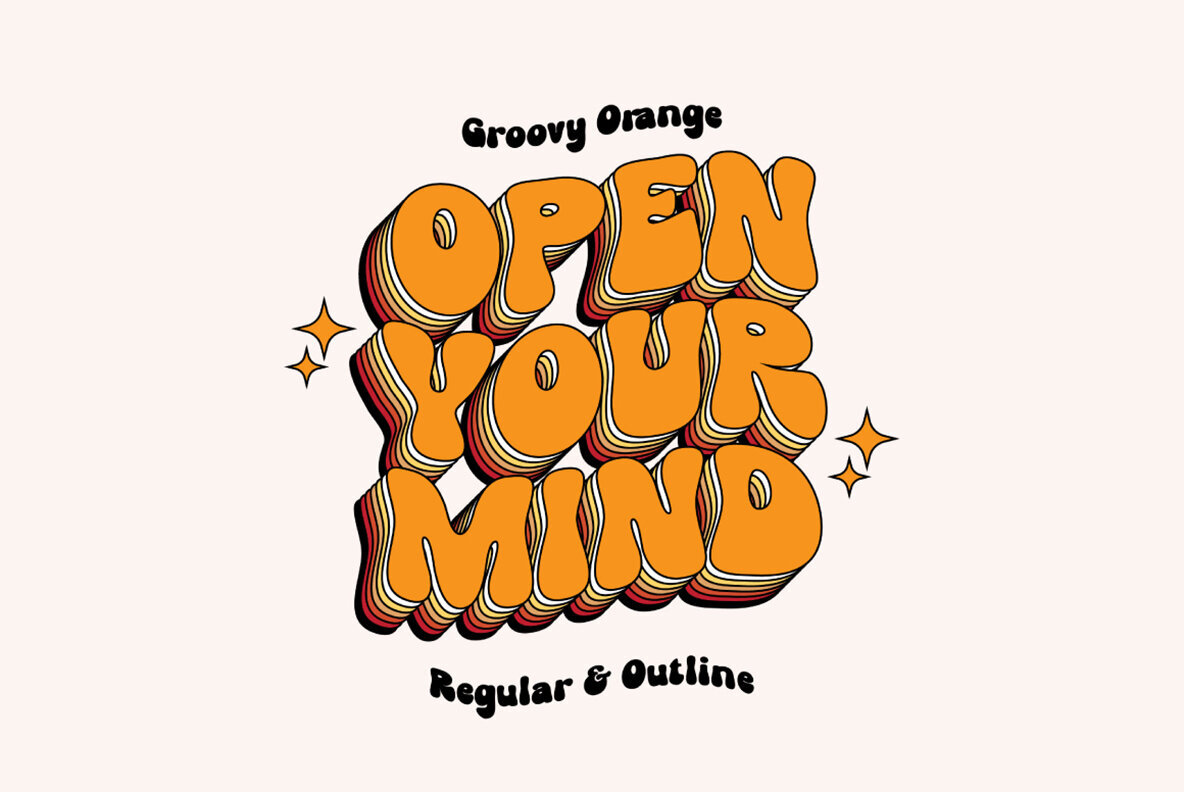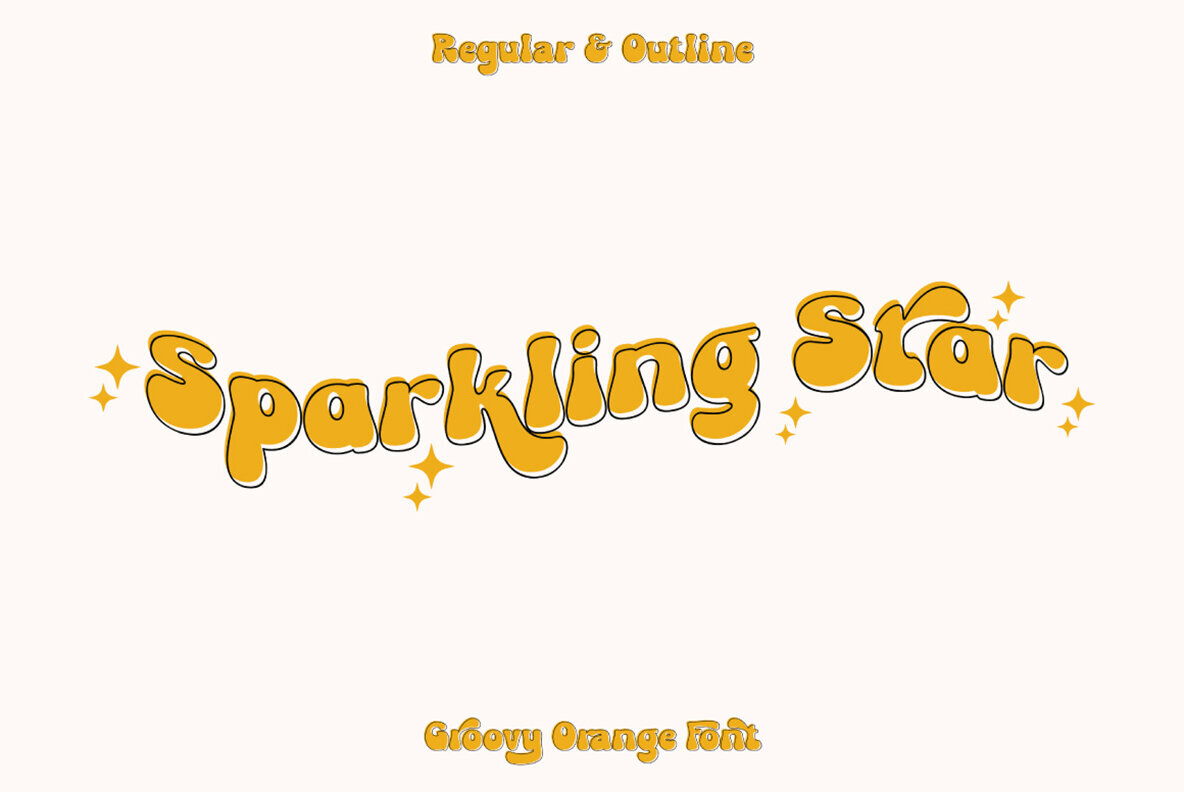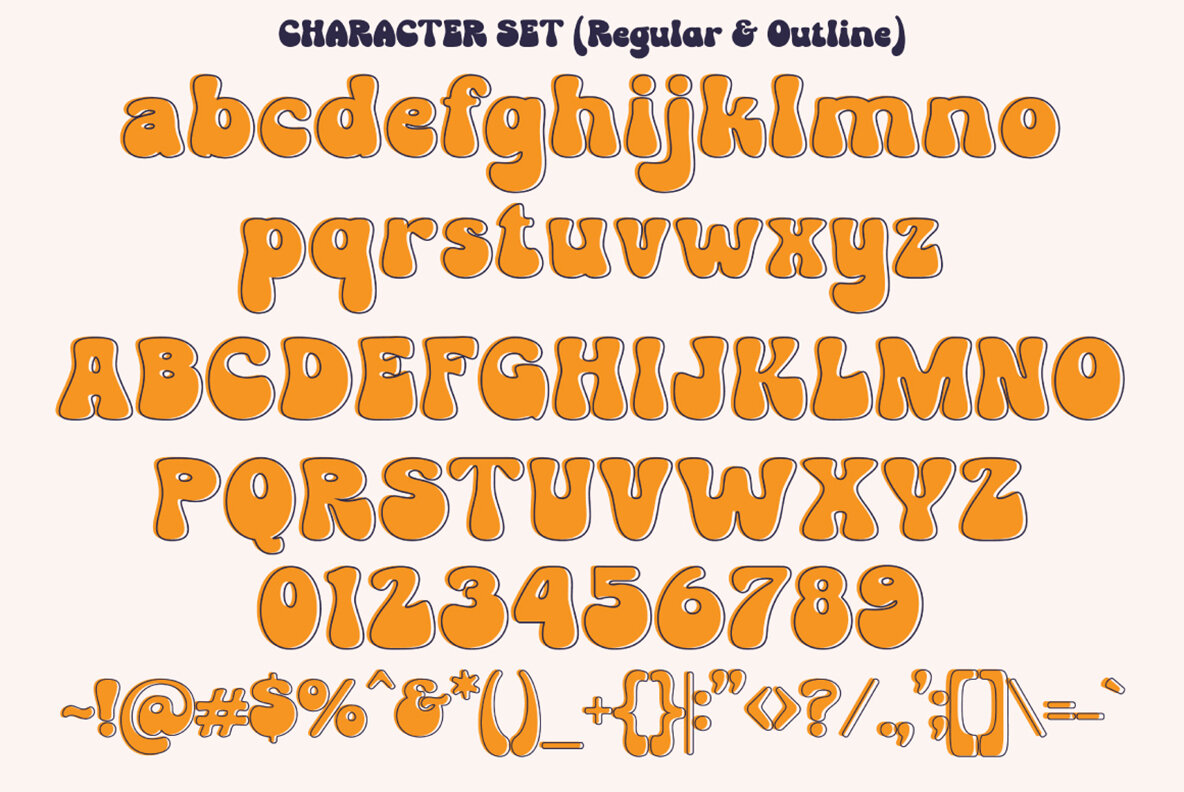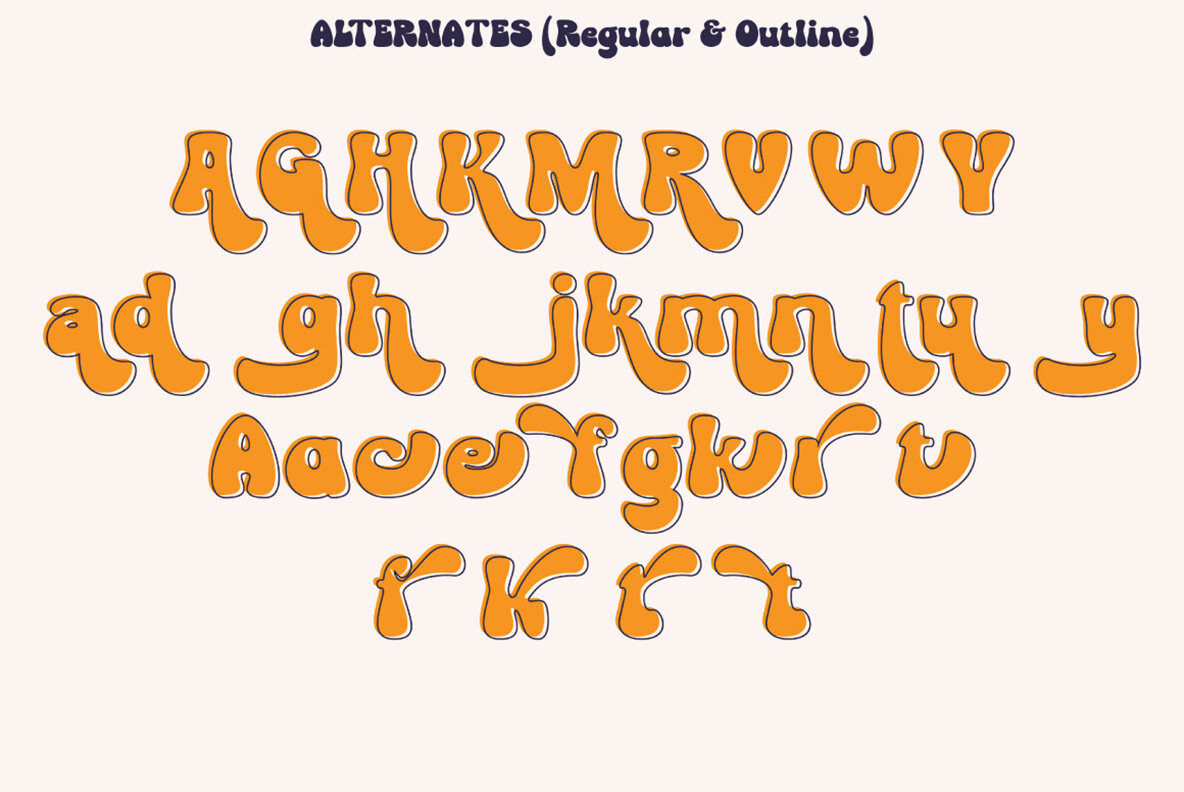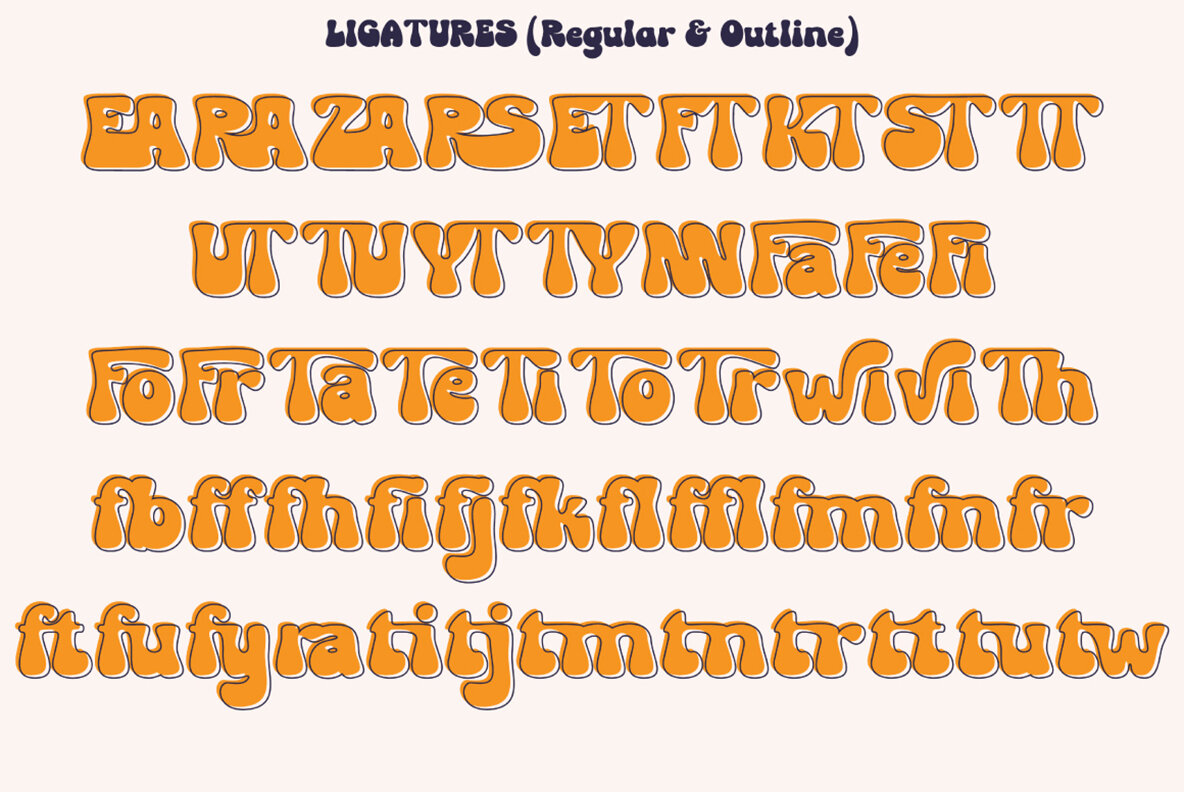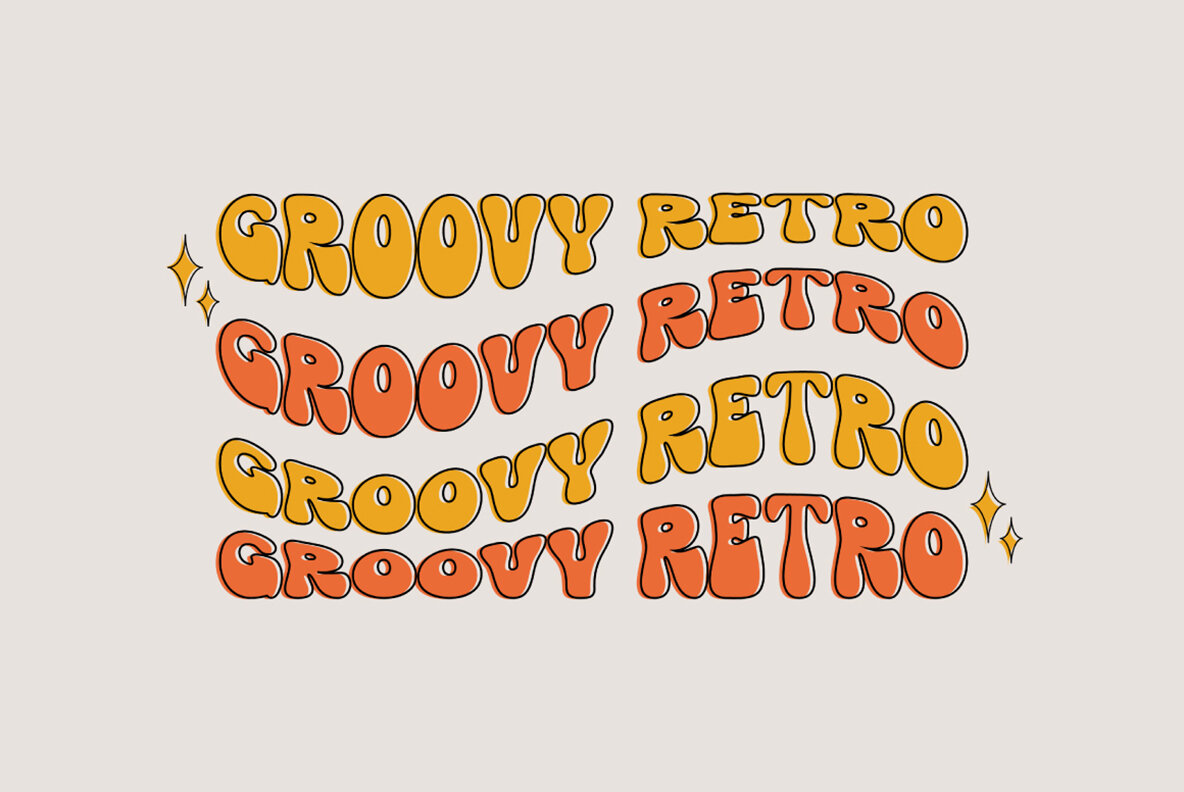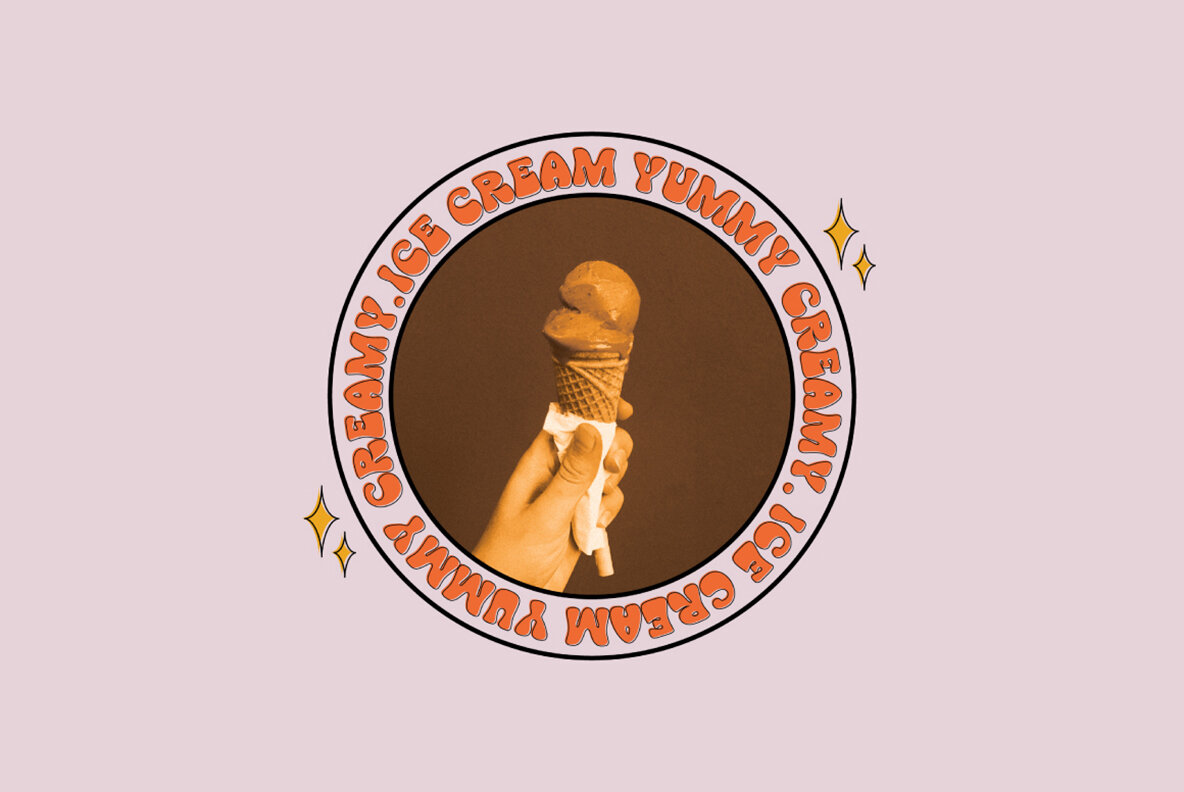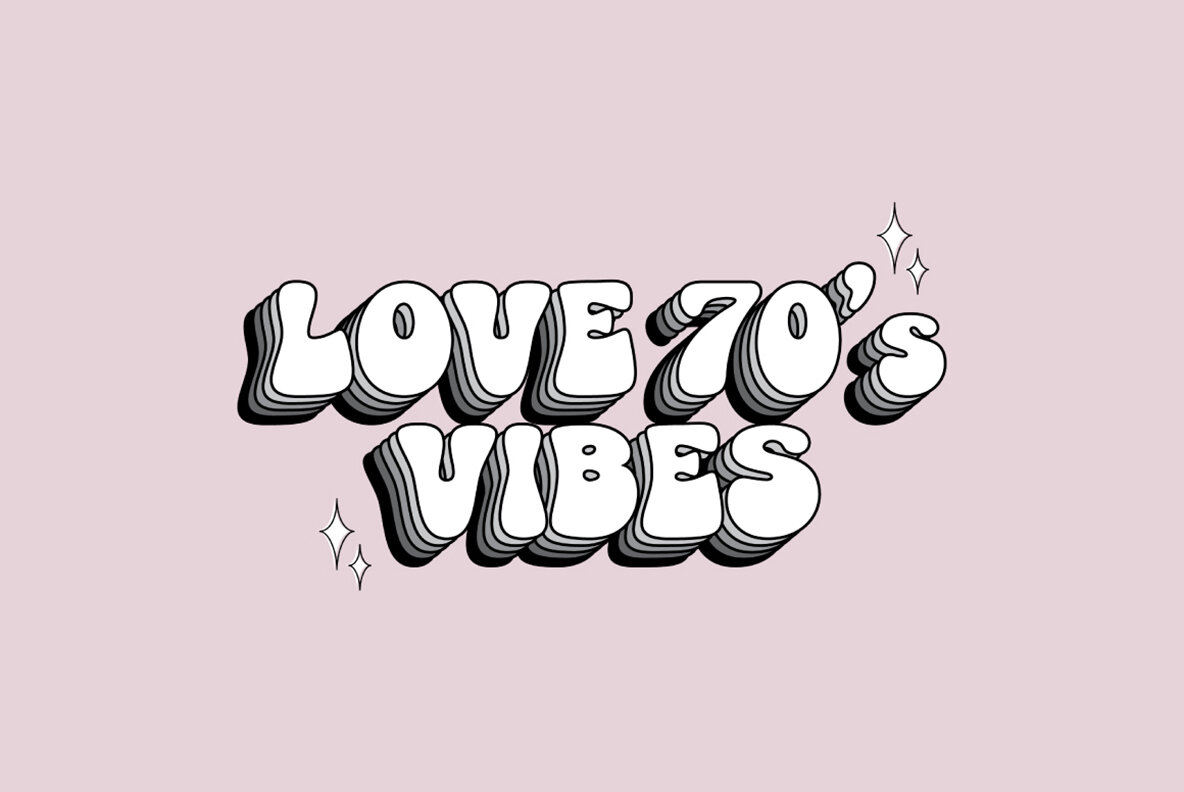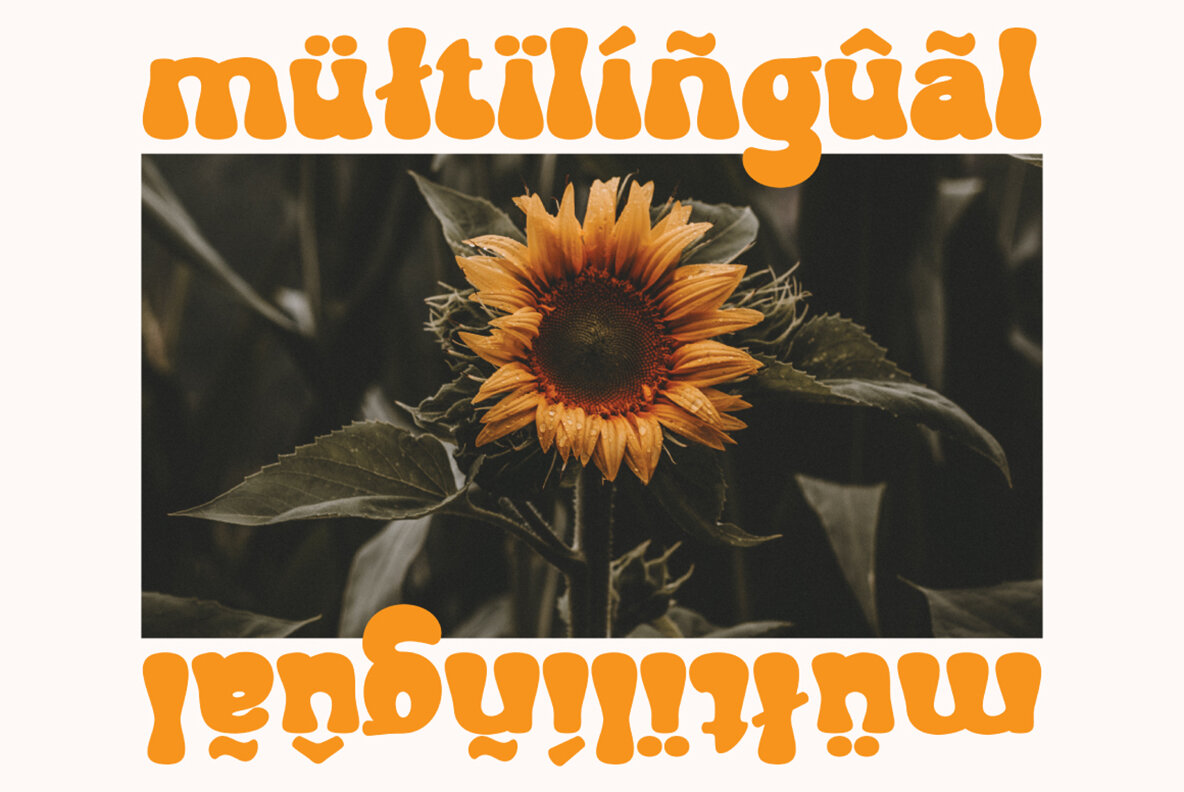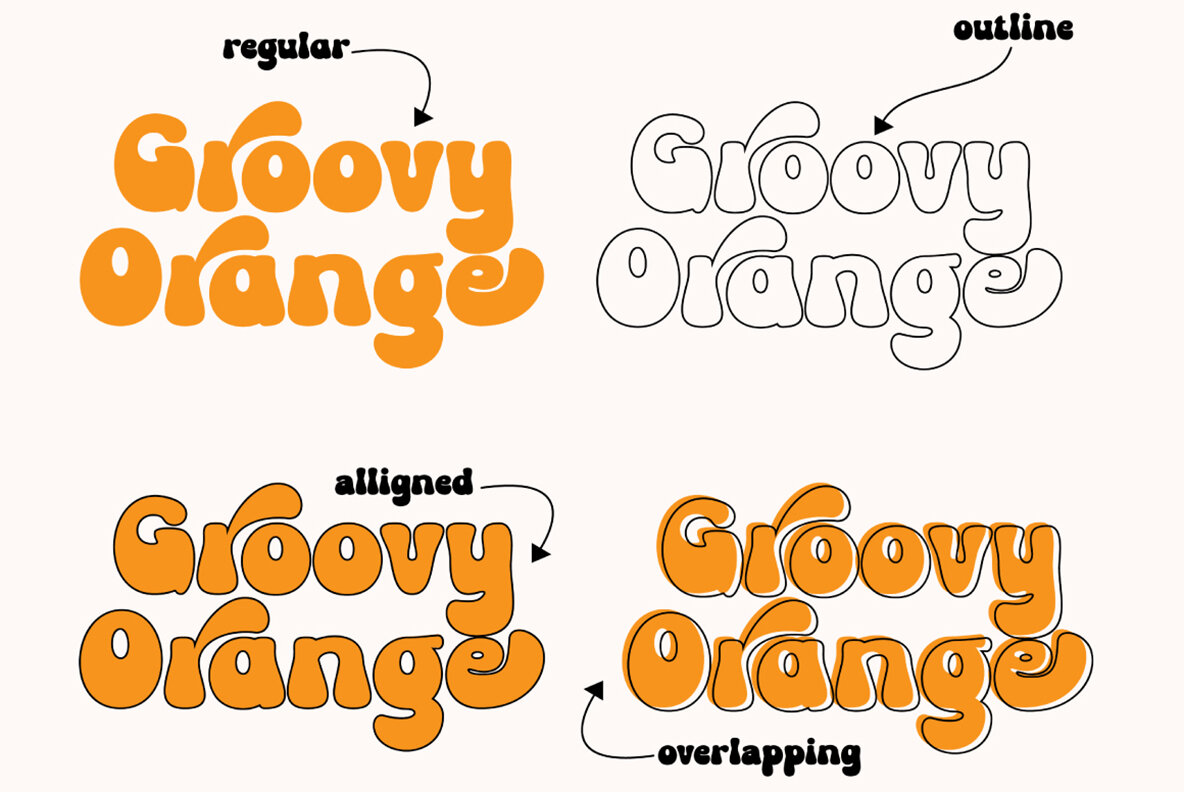
Groovy Orange Font
The Groovy Orange font embodies a playful nostalgia with its vintage retro aesthetic, perfect for adding a unique touch to any design. Expertly crafted, this display font is designed to elevate your creative ideas. We hope Groovy Orange will be a perfect addition to your font collection. Feel free to reach out with any questions. Thank you, and happy creating!Groovy Orange: Playful Retro Display Font